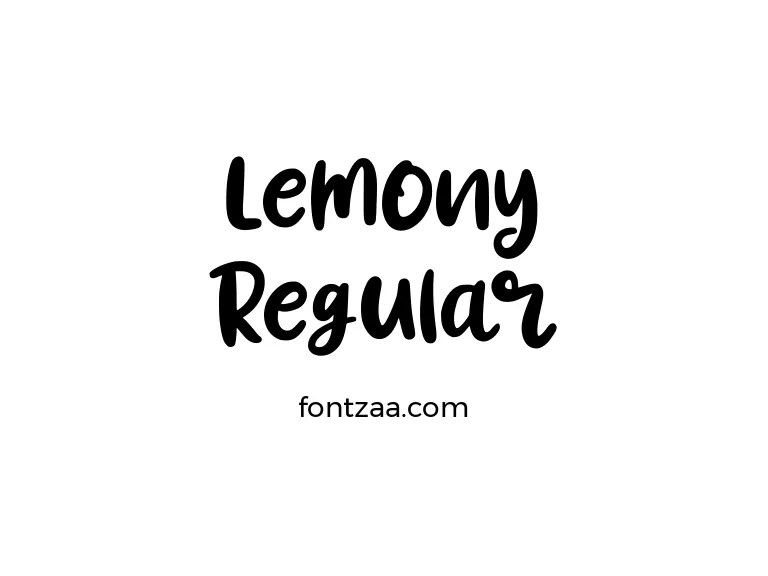
Lemony Regular Font offers expressive lettering for designers looking for a elegant visual direction. Lemony Regular Font stands out through its individual shapes and can become an important visual element in creative display work. Testing several arrangements before choosing the final version can reveal which characteristics of the typeface work best. Its letter shapes become especially noticeable at larger sizes, where spacing and proportions can be explored more clearly. Using generous space around the lettering can help the details of the typeface remain visible instead of competing with other elements. Creative uses may range from invitations, wedding stationery, signatures, quotes and elegant branding, with different results depending on scale and layout. For layouts containing longer information, pairing it with a simpler supporting typeface can improve readability and hierarchy. A clean serif or sans serif companion can handle smaller text while this font remains focused on headlines and key messages. Source metadata currently associates the font with Creatype Studio Co.. The listed license is Free for personal use, although users should still review the original font package before commercial use. The most effective treatment will vary by project, so designers should compare several versions before finalizing the artwork.
Lemony Regular Font stands out through its individual shapes and can become an important visual element in headlines, branding and promotional layouts. The font can work as the primary visual element in a minimal layout or as part of a more detailed composition. Testing several arrangements before choosing the final version can reveal which characteristics of the typeface work best. Using generous space around the lettering can help the details of the typeface remain visible instead of competing with other elements. Possible applications include invitations, wedding stationery, signatures, quotes and elegant branding. Print and digital layouts may require different sizing and spacing, so testing the actual output dimensions is recommended. For layouts containing longer information, pairing it with a simpler supporting typeface can improve readability and hierarchy. The designer or publisher information available for this typeface is Creatype Studio Co.. Current license information is shown as Free for personal use; checking the original documentation is recommended before client or commercial work. Its final appearance will depend heavily on the surrounding colors, imagery, spacing and supporting typography.
Lemony Regular Font brings a elegant personality to typography and gives designers a flexible starting point for digital and print projects. Different color combinations can make the same font feel subtle, energetic, premium or highly decorative. Using generous space around the lettering can help the details of the typeface remain visible instead of competing with other elements. Its letter shapes become especially noticeable at larger sizes, where spacing and proportions can be explored more clearly. Designers may explore it across invitations, wedding stationery, signatures, quotes and elegant branding, depending on the tone and requirements of the project. A clean serif or sans serif companion can handle smaller text while this font remains focused on headlines and key messages. For layouts containing longer information, pairing it with a simpler supporting typeface can improve readability and hierarchy. The designer or publisher information available for this typeface is Creatype Studio Co.. License details are currently listed as Free for personal use. Users should verify the supplied documentation before using the font in products or paid projects. Experimenting directly in the intended design is usually the best way to judge whether the typeface suits the project.
Lemony Regular Font Family
The Lemony Regular Font Family can be explored in multiple compositions by adjusting typography size, spacing and surrounding design elements. Lemony Regular Font brings a elegant personality to typography and gives designers a flexible starting point for font-family exploration. Testing several arrangements before choosing the final version can reveal which characteristics of the typeface work best. Different color combinations can make the same font feel subtle, energetic, premium or highly decorative. The font can work as the primary visual element in a minimal layout or as part of a more detailed composition. Designers may explore it across invitations, wedding stationery, signatures, quotes and elegant branding, depending on the tone and requirements of the project. A clean serif or sans serif companion can handle smaller text while this font remains focused on headlines and key messages. Print and digital layouts may require different sizing and spacing, so testing the actual output dimensions is recommended. The available source information lists Creatype Studio Co. as the designer or publisher. The available licensing label is Free for personal use, but redistribution and commercial permissions should always be confirmed from the original source. The most effective treatment will vary by project, so designers should compare several versions before finalizing the artwork.
| Designer | Creatype Studio Co. |
Choosing Supporting Fonts for Lemony Regular Font
Lemony Regular Font stands out through its individual shapes and can become an important visual element in combining the display font with supporting typefaces. Different color combinations can make the same font feel subtle, energetic, premium or highly decorative. Using generous space around the lettering can help the details of the typeface remain visible instead of competing with other elements. Testing several arrangements before choosing the final version can reveal which characteristics of the typeface work best. The font can be considered for projects such as invitations, wedding stationery, signatures, quotes and elegant branding. A clean serif or sans serif companion can handle smaller text while this font remains focused on headlines and key messages. Designers should evaluate the typeface inside the real project because a standalone preview cannot show every possible visual combination. The designer or publisher information available for this typeface is Creatype Studio Co.. The listed license is Free for personal use, although users should still review the original font package before commercial use. The most effective treatment will vary by project, so designers should compare several versions before finalizing the artwork.
Creative Uses for Lemony Regular Font
The visual character of Lemony Regular Font makes it an interesting choice for designers working on practical ways designers can use the typeface. Different color combinations can make the same font feel subtle, energetic, premium or highly decorative. The font can work as the primary visual element in a minimal layout or as part of a more detailed composition. Its letter shapes become especially noticeable at larger sizes, where spacing and proportions can be explored more clearly. Its display-focused appearance makes it worth testing in invitations, wedding stationery, signatures, quotes and elegant branding. A clean serif or sans serif companion can handle smaller text while this font remains focused on headlines and key messages. For layouts containing longer information, pairing it with a simpler supporting typeface can improve readability and hierarchy. The available source information lists Creatype Studio Co. as the designer or publisher. Current license information is shown as Free for personal use; checking the original documentation is recommended before client or commercial work. Testing the font with the actual project text can provide a much better impression than viewing isolated sample characters.
Lemony Regular Font in Digital and Poster Design
For projects that need typography with a stronger identity, Lemony Regular Font offers a elegant direction suited to posters, campaigns, thumbnails and promotional content. Testing several arrangements before choosing the final version can reveal which characteristics of the typeface work best. Its letter shapes become especially noticeable at larger sizes, where spacing and proportions can be explored more clearly. Different color combinations can make the same font feel subtle, energetic, premium or highly decorative. The font can be considered for projects such as invitations, wedding stationery, signatures, quotes and elegant branding. Designers should evaluate the typeface inside the real project because a standalone preview cannot show every possible visual combination. For layouts containing longer information, pairing it with a simpler supporting typeface can improve readability and hierarchy. The designer or publisher information available for this typeface is Creatype Studio Co.. The available licensing label is Free for personal use, but redistribution and commercial permissions should always be confirmed from the original source. Experimenting directly in the intended design is usually the best way to judge whether the typeface suits the project.
Lemony Regular Font stands out through its individual shapes and can become an important visual element in discovering alternatives and related typography. The typeface can change considerably depending on tracking, scale, alignment, background and surrounding imagery. Testing several arrangements before choosing the final version can reveal which characteristics of the typeface work best. Its letter shapes become especially noticeable at larger sizes, where spacing and proportions can be explored more clearly. Designers may explore it across invitations, wedding stationery, signatures, quotes and elegant branding, depending on the tone and requirements of the project. Keeping secondary typography simple often allows the distinctive qualities of the main font to remain more visible. For layouts containing longer information, pairing it with a simpler supporting typeface can improve readability and hierarchy. The designer or publisher information available for this typeface is Creatype Studio Co.. License details are currently listed as Free for personal use. Users should verify the supplied documentation before using the font in products or paid projects. Experimenting directly in the intended design is usually the best way to judge whether the typeface suits the project. Explore more typography on Fontzaa or browse the 100% Free Fonts collection.
Creative Projects With Lemony Regular Font
Lemony Regular Font stands out through its individual shapes and can become an important visual element in different creative applications for the font. Using generous space around the lettering can help the details of the typeface remain visible instead of competing with other elements. Testing several arrangements before choosing the final version can reveal which characteristics of the typeface work best. The font can work as the primary visual element in a minimal layout or as part of a more detailed composition. Possible applications include invitations, wedding stationery, signatures, quotes and elegant branding. For layouts containing longer information, pairing it with a simpler supporting typeface can improve readability and hierarchy. Designers should evaluate the typeface inside the real project because a standalone preview cannot show every possible visual combination. The available source information lists Creatype Studio Co. as the designer or publisher. Current license information is shown as Free for personal use; checking the original documentation is recommended before client or commercial work. The most effective treatment will vary by project, so designers should compare several versions before finalizing the artwork.